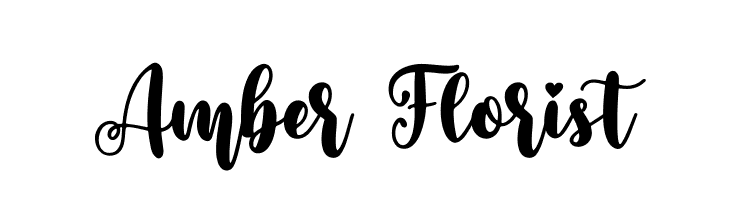
A fluid and elegant script font with smooth, flowing lines and cursive letterforms.
A bold, angular serif font with a modern vintage flair.
A playful, bold font with rounded, whimsical characters.